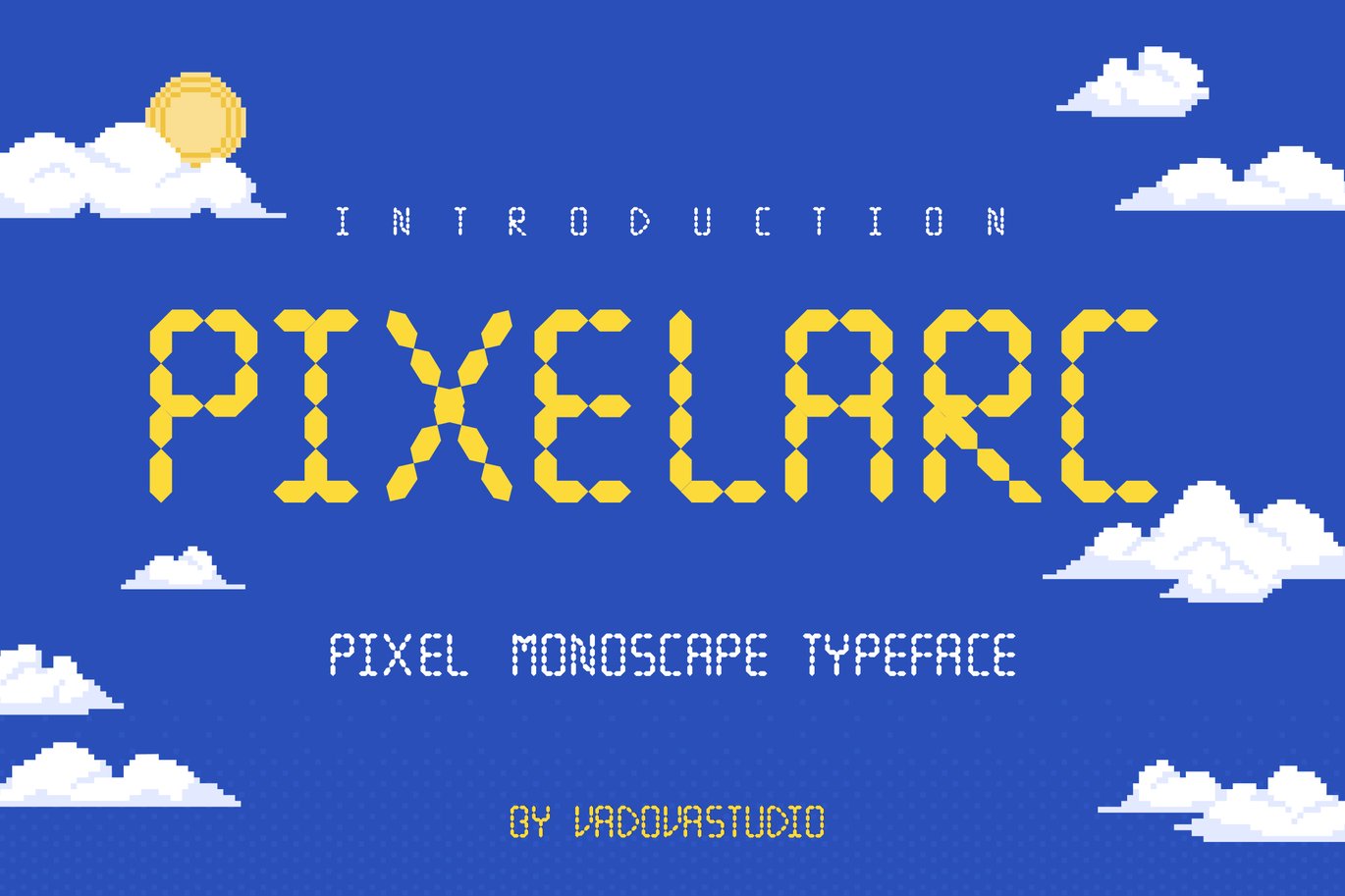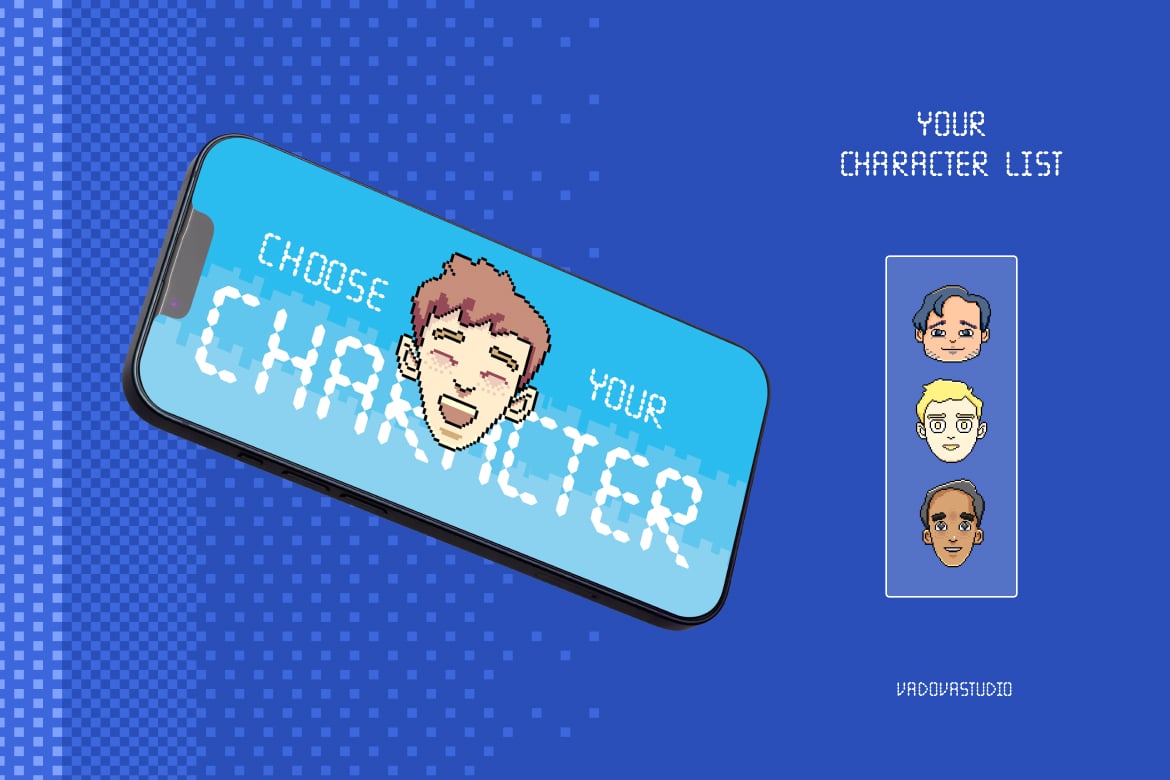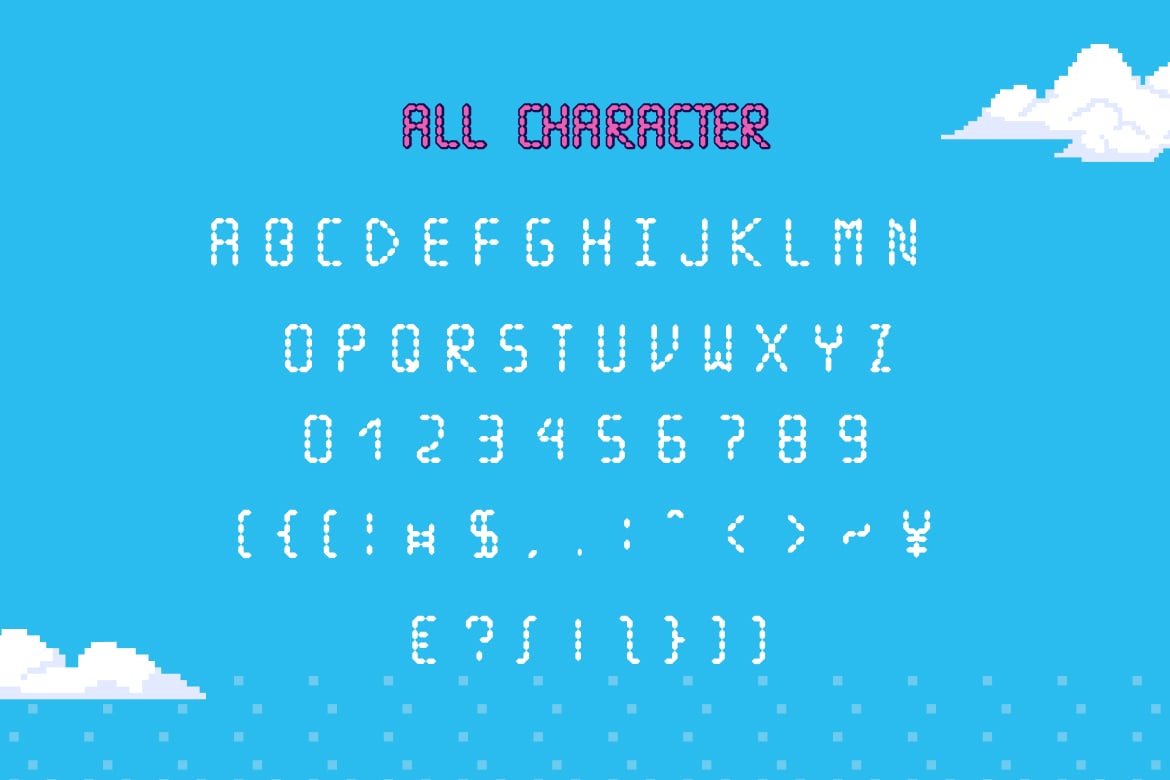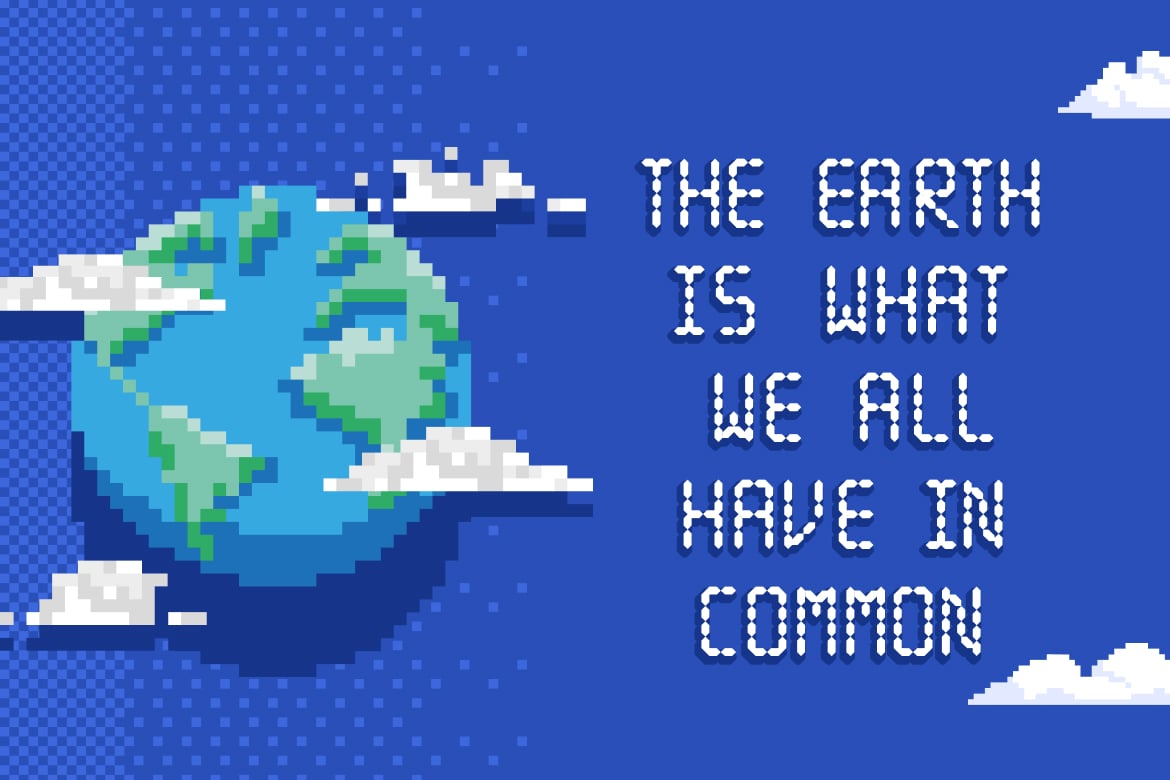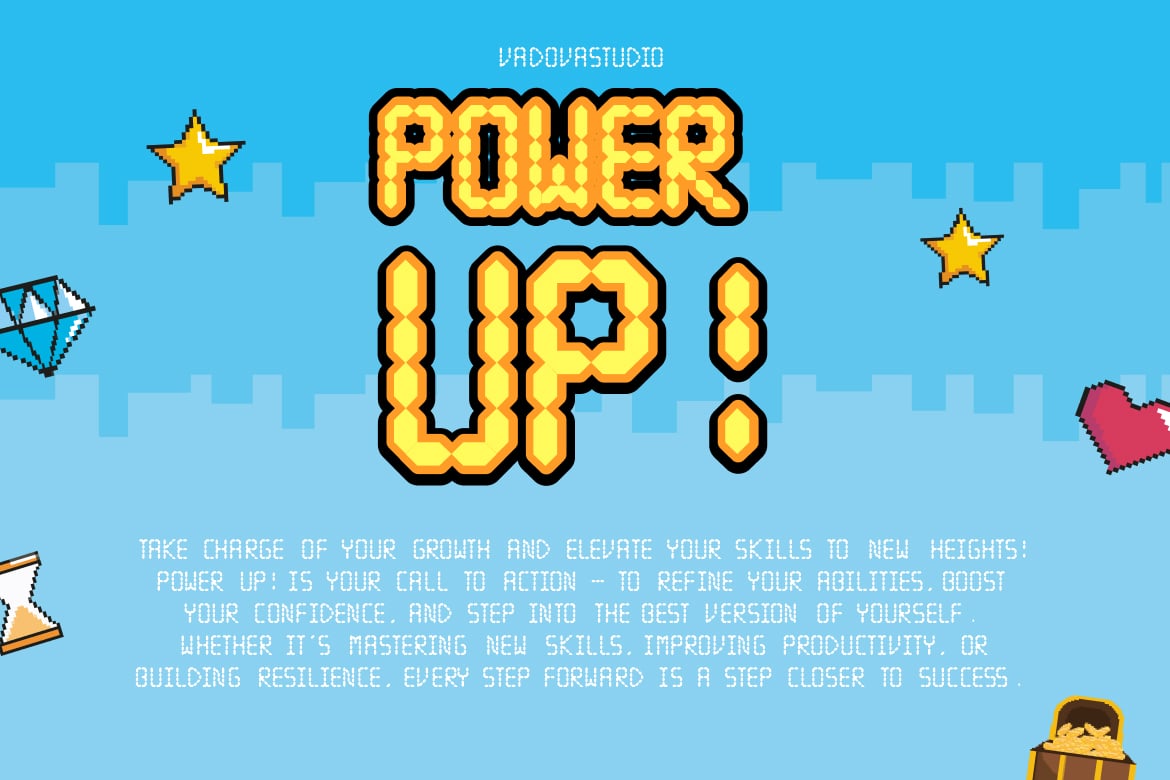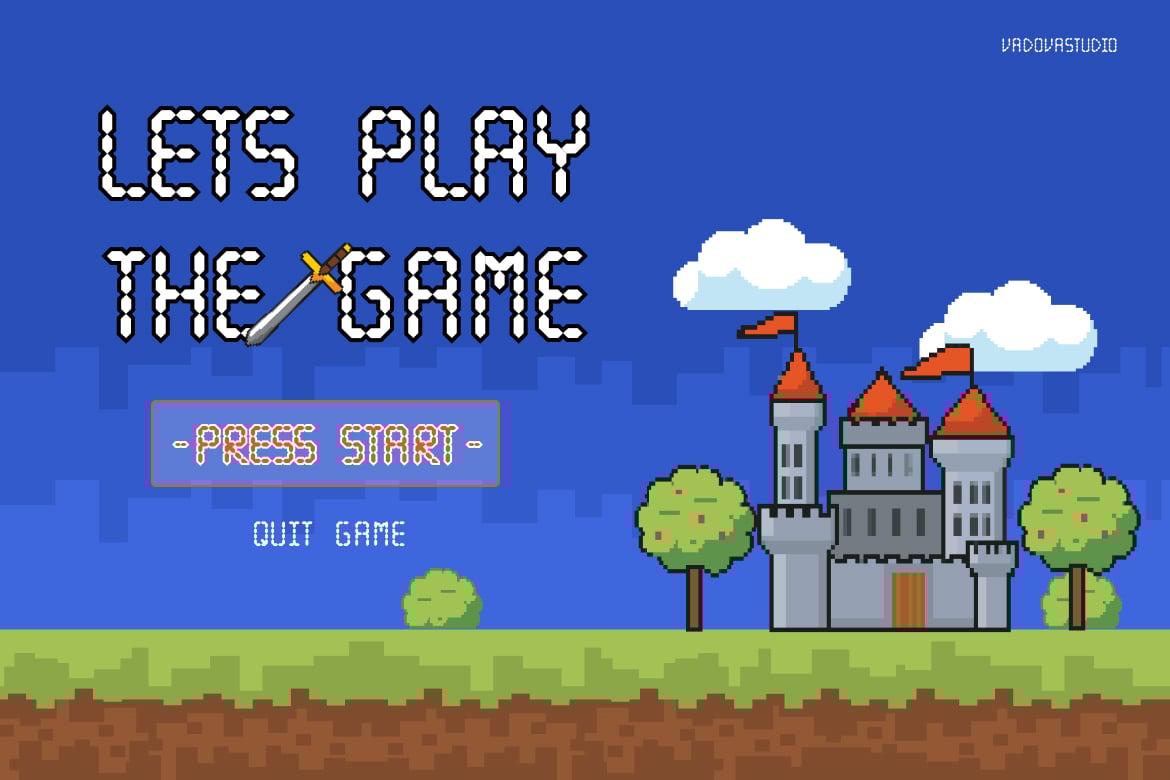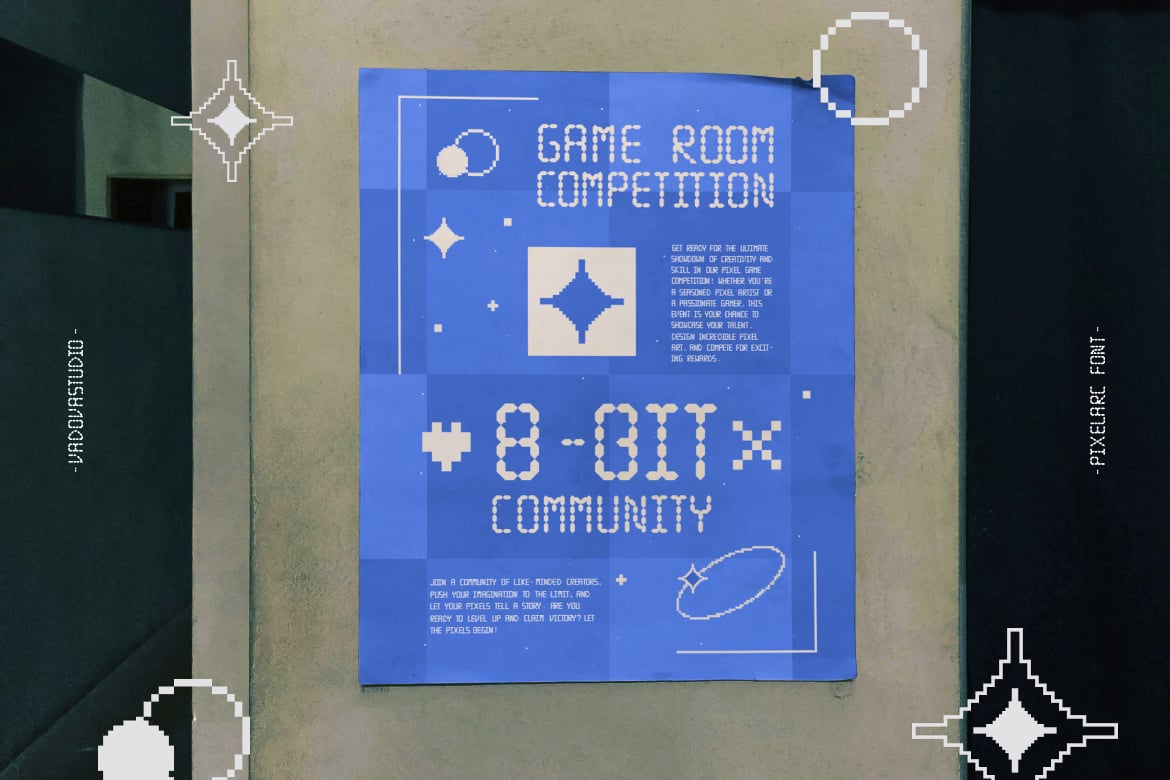
Pixelarc Monoscape Pixel Font
Elevate your designs with Pixelarc Monoscape Pixel Font, a modern font perfect for adding elegance and style to your projects. Whether it’s for quotes, logotypes, magazine headers, or more, this versatile typeface ensures your text stands out beautifully.